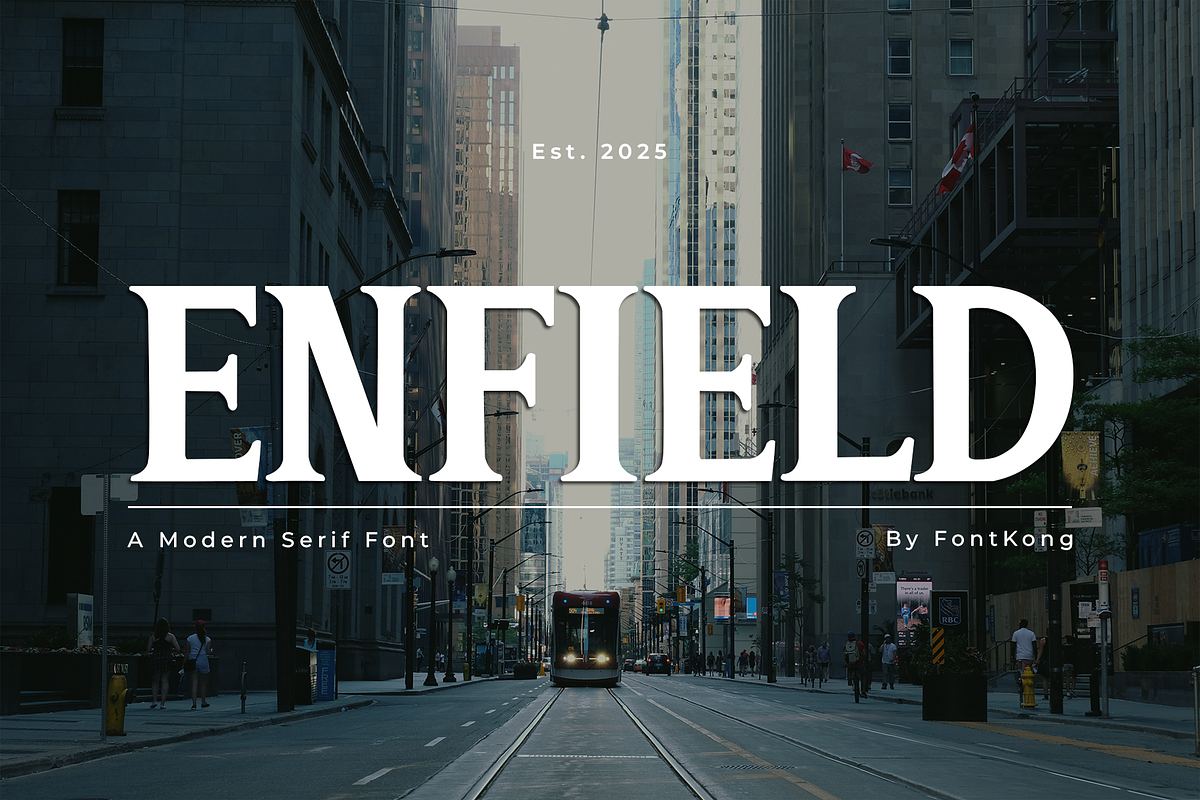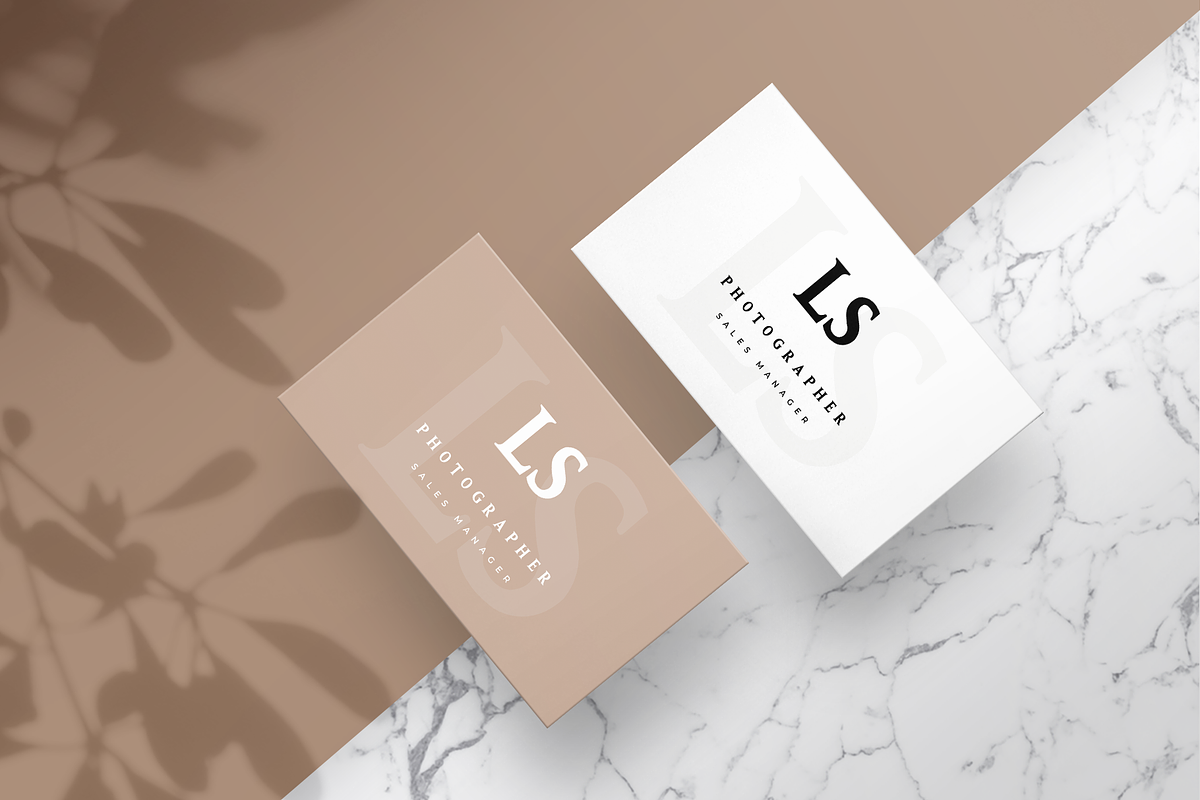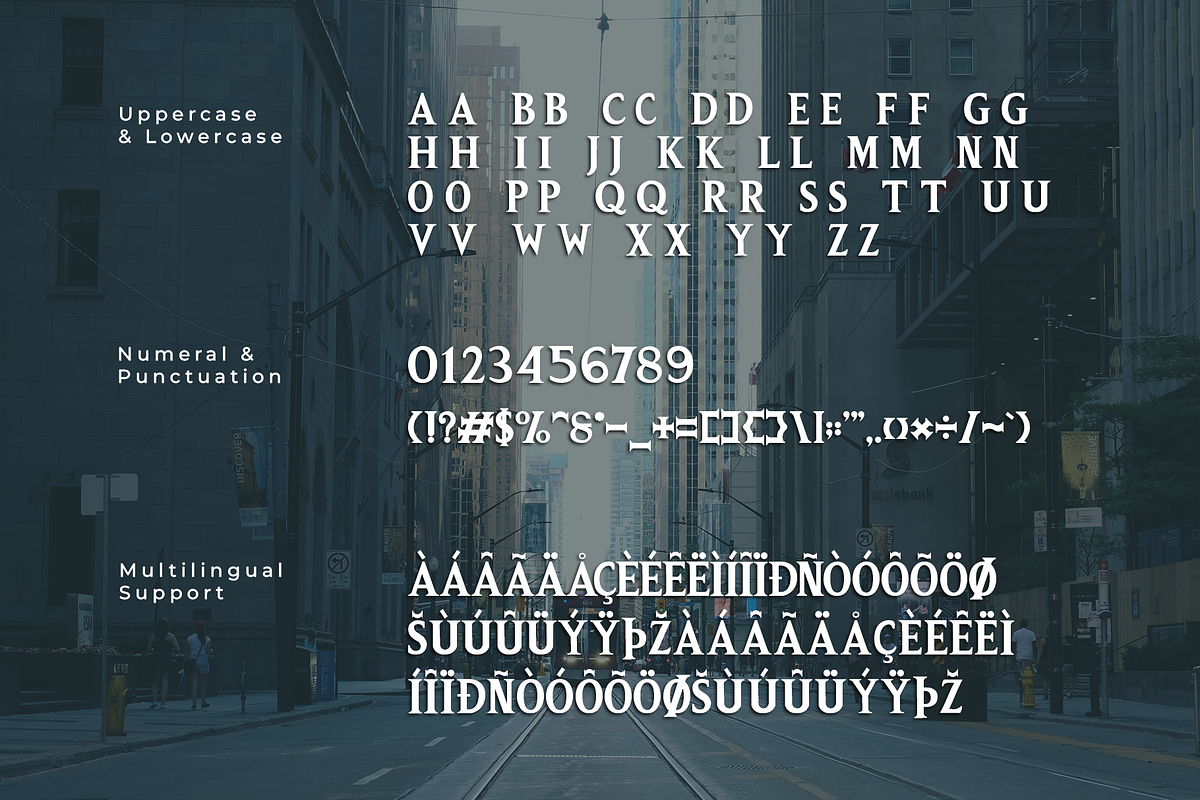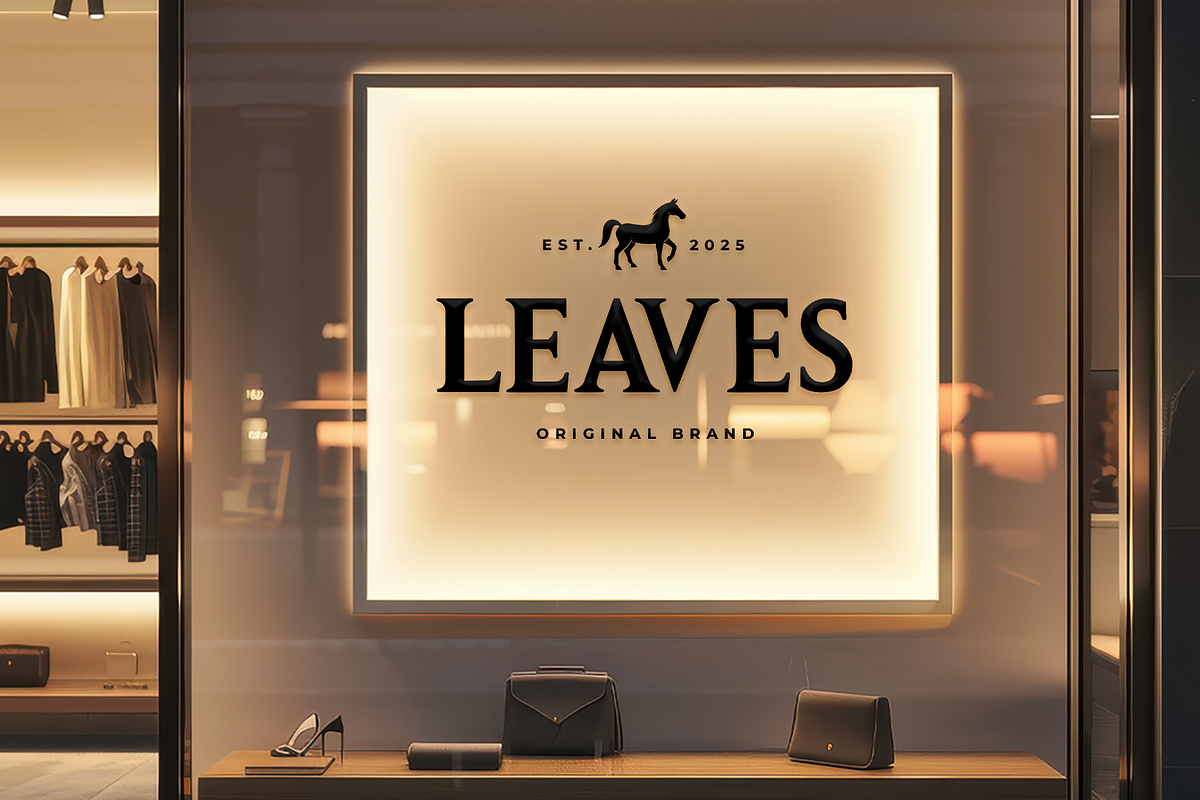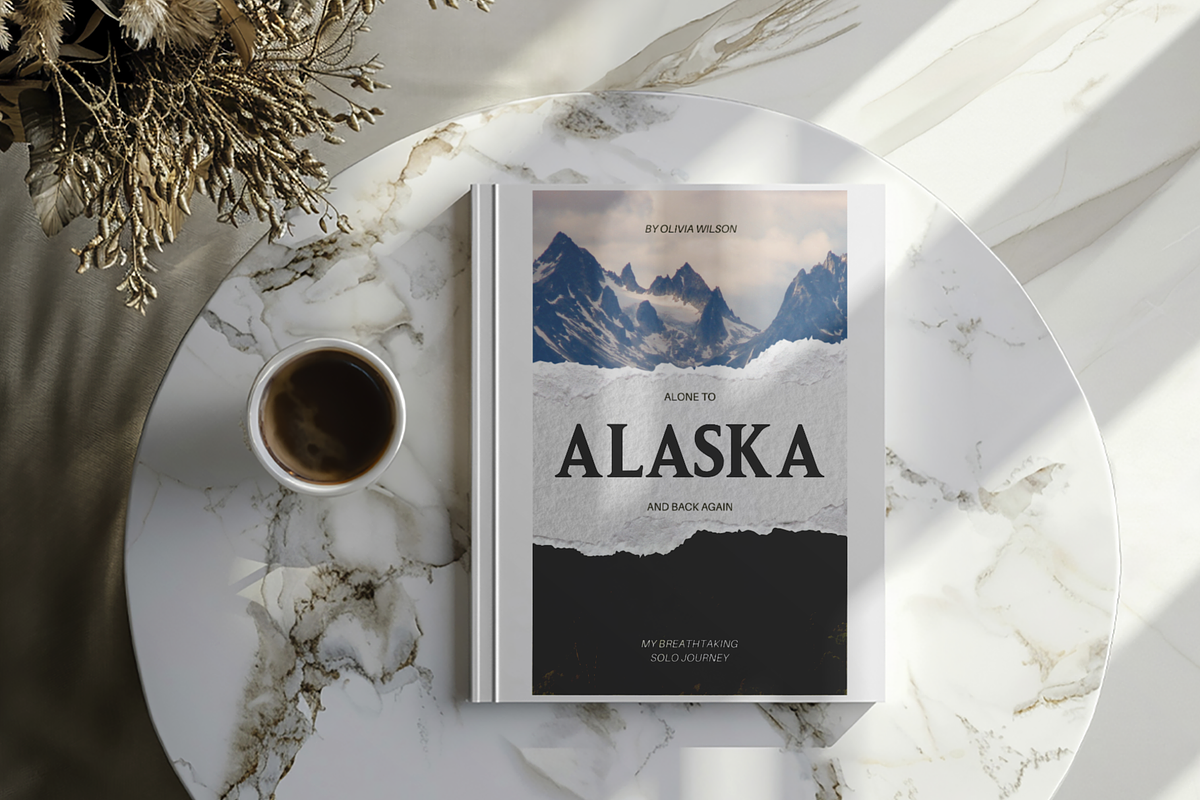
Enfield – A Modern Serif Font
Enfield is a modern serif font that combines timeless sophistication with a sleek, contemporary aesthetic. Designed with balanced proportions and crisp serifs, this typeface is perfect for branding, editorial design, high-end packaging, invitations, and luxury advertisements.
Crafted with versatility in mind, Enfield offers exceptional readability while maintaining a stylish presence. It features a full set of uppercase and lowercase letters, numerals, punctuation, and multilingual support, ensuring seamless integration into any creative project.
Whether you're designing a prestigious logo, an elegant magazine layout, or a refined social media post, Enfield enhances your work with a touch of class and professionalism.